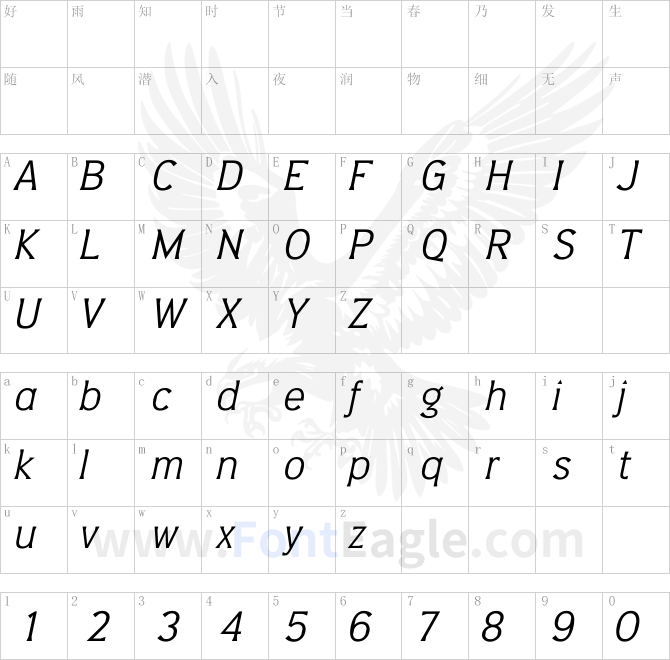
- Font name:Barbica
- Font Version:Barbica Italic (version 1.0) by Keith Bates • © 2015 www.k-type.com
- Font Copyright:Barbica Italic by Keith Bates • © 2015 www.k-type.com • Barbica is a glyphic typeface with the clean feel of a sans. Angular flared terminals and vertical struts provide stroke contrast and definition without being overly obtrusive.